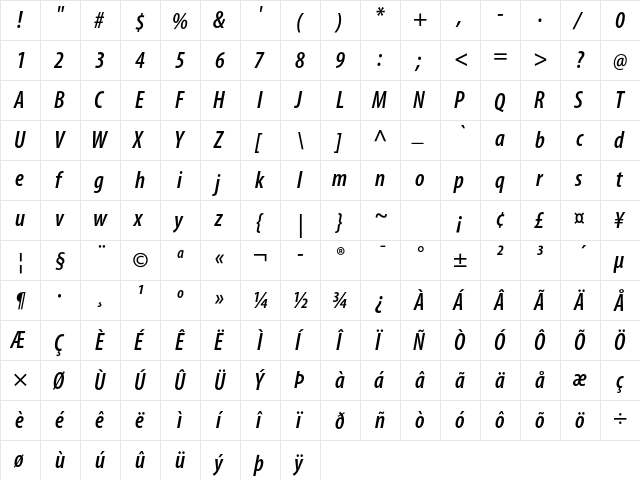
Myriad Pro Semibold Condensed Italic Font Preview
| Style | Semibold Condensed Italic |
| Designer | Robert Slimbach and Carol Twombly |
Design Context for Myriad Pro Typeface
Myriad Pro is a composed and adaptable typeface that performs quietly and consistently across a wide range of design contexts. The dynamic lean of this cut emphasises speed and emphasis in any layout. The heavy weight commands attention and anchors typographic hierarchies. Its narrow stance lets it pack a punch even in space-constrained designs.
Pro Tip: Try Myriad Pro for annotation and caption copy alongside an upright companion — the contrast in angle creates a dynamic but ordered typographic system.